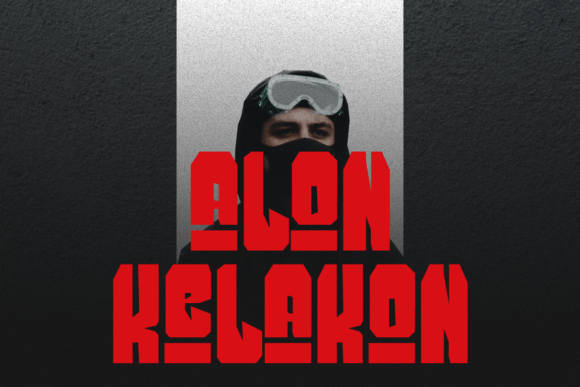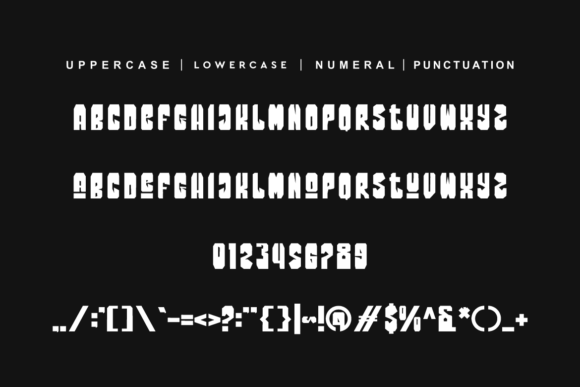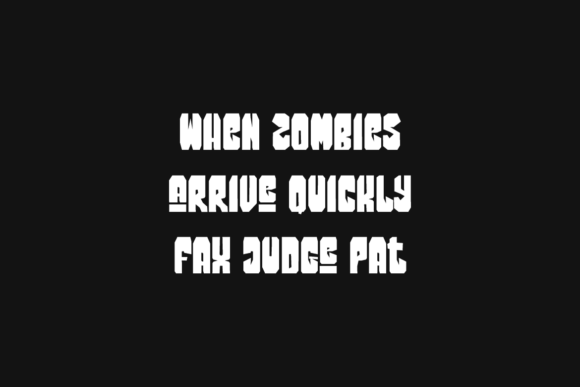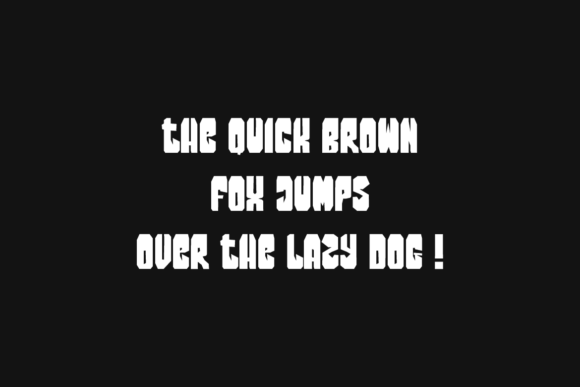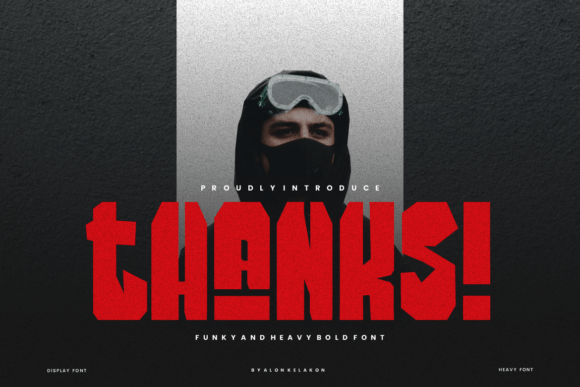
Quckera Font — Free Download Now
Introduction to Quckera Font
As a designer, have you ever found yourself staring at a blank canvas, desperately searching for the perfect font to bring your creative vision to life? We’ve all been there – the moment of truth when the entire project hangs in the balance, and a single, well-chosen font can make all the difference. This is where Quckera Font comes in – a game-changing design resource that’s ready to elevate your next project.
With its versatility and high-quality design, Quckera Font is the perfect addition to any creative project. Whether you’re working on a movie title, a poster, or album covers, this font is sure to impress. And the best part? It’s available for free download, making it an accessible and valuable resource for designers of all levels.
• High-quality font design for creative projects: Quckera Font is a professional and modern font suitable for various design needs.
• Unique characteristics: Quckera Font features a unique blend of modern and elegant design elements, making it a standout choice for creative projects.
Honest Review: Quckera Font
I recently came across the Quckera Font, a free download that caught my attention as a potential design resource. Upon closer inspection, I found it to be a solid option for creative projects.
Here are some aspects that work well: ✨
• High quality: The font’s crisp and clean design makes it perfect for both digital and print-based projects.
However, I did notice a few limitations: ⚠️
• Limited font variations: The Quckera Font currently offers only a few styles, which might not be enough for designers seeking a more extensive range.
• Not suitable for all audiences: The font’s design might not be ideal for projects targeting conservative or traditional demographics.
Overall, I’d say the Quckera Font is a decent addition to any design arsenal. While it may not be perfect, its strengths and accessibility make it a worthwhile option for many creative projects.
Some tips for getting the most out of Quckera Font include experimenting with different font sizes, colors, and styles to create unique designs. Common use cases for Quckera Font include creating social media graphics, presentations, and marketing materials. You can also use it for designing logos, brochures, and flyers. With its free download and high-quality design, Quckera Font is an excellent resource for any creative project.